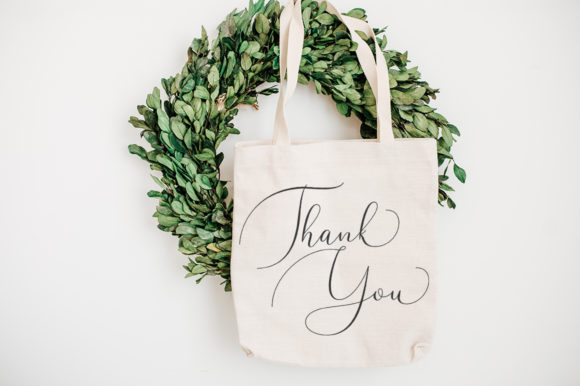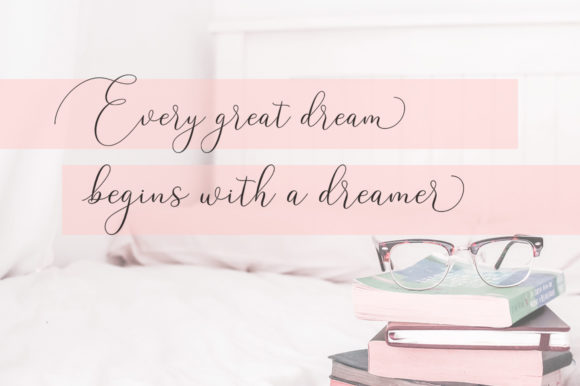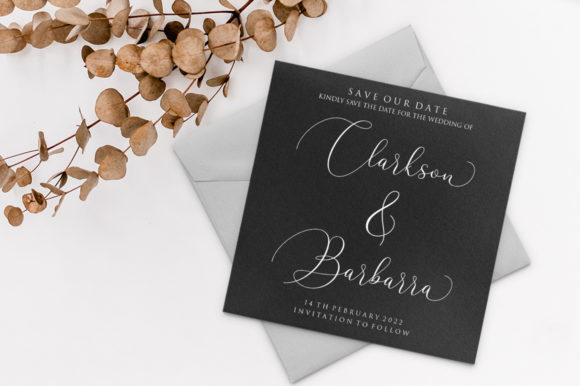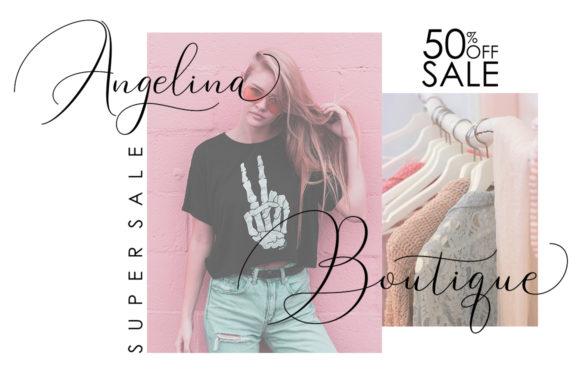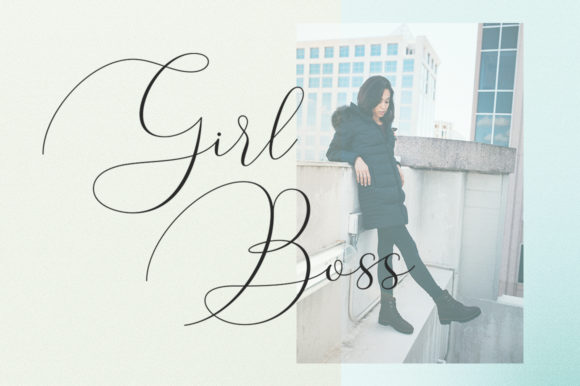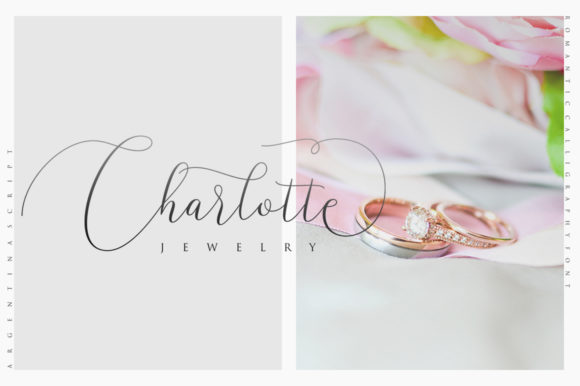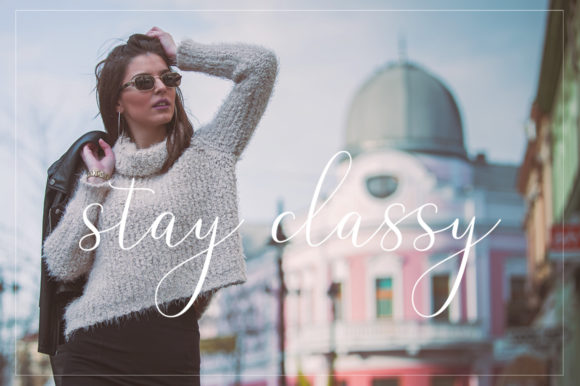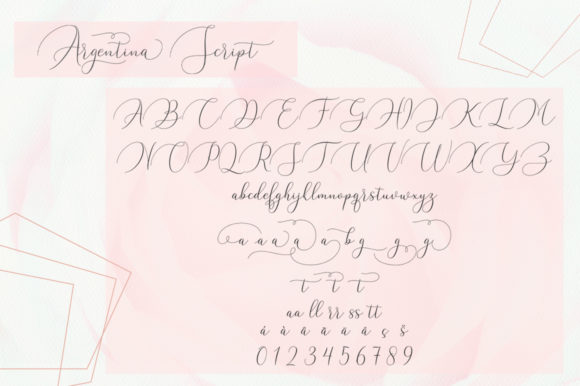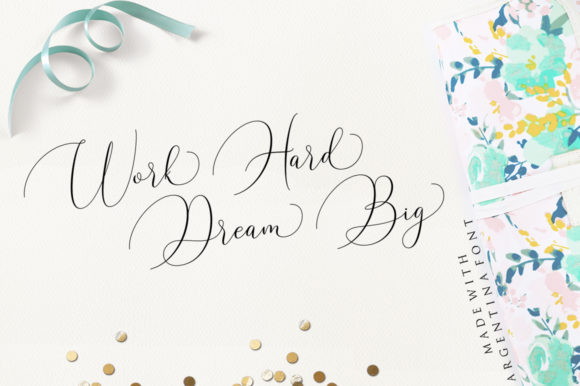
Argentina Font
About Argentina Font
Argentina is a romantic and lovely calligraphy font that features a varying baseline and smooth lines. It has a unique elegant touch and can be used for any design idea that needs a whimsical feel.